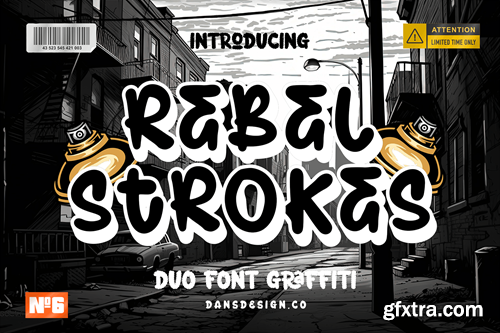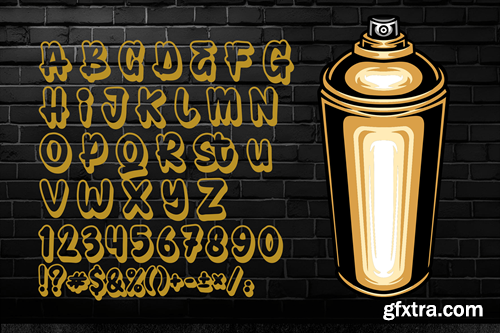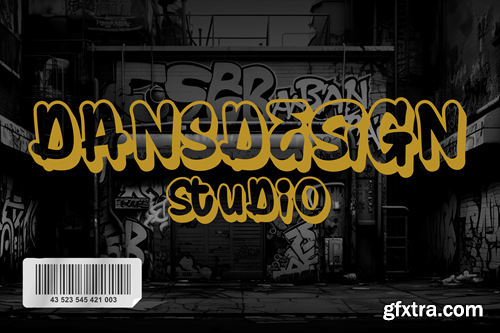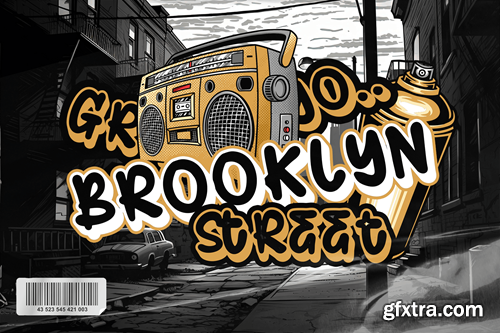
叛逆之色马克笔涂鸦刷双文fontfafrc8l
Rebel Strokes Marker Graffiti Brush Duo Font
Rebel Strokes Marker Graffiti Brush Duo Font a distinct, highly detailed. GRAFFITI Display Font. It would make a great choice for exquisite retro-urban designs, business branding, logos, Apparel designs, and more. Rebel Strokes Marker Graffiti Brush Duo Font (OTF/TTF) Rebel Strokes Marker Graffiti Brush Duo Font (WEB TT/PS) Featured : Accents (Multilingual characters) PUA encoded Numerals and Punctuation (OpenType Standard)